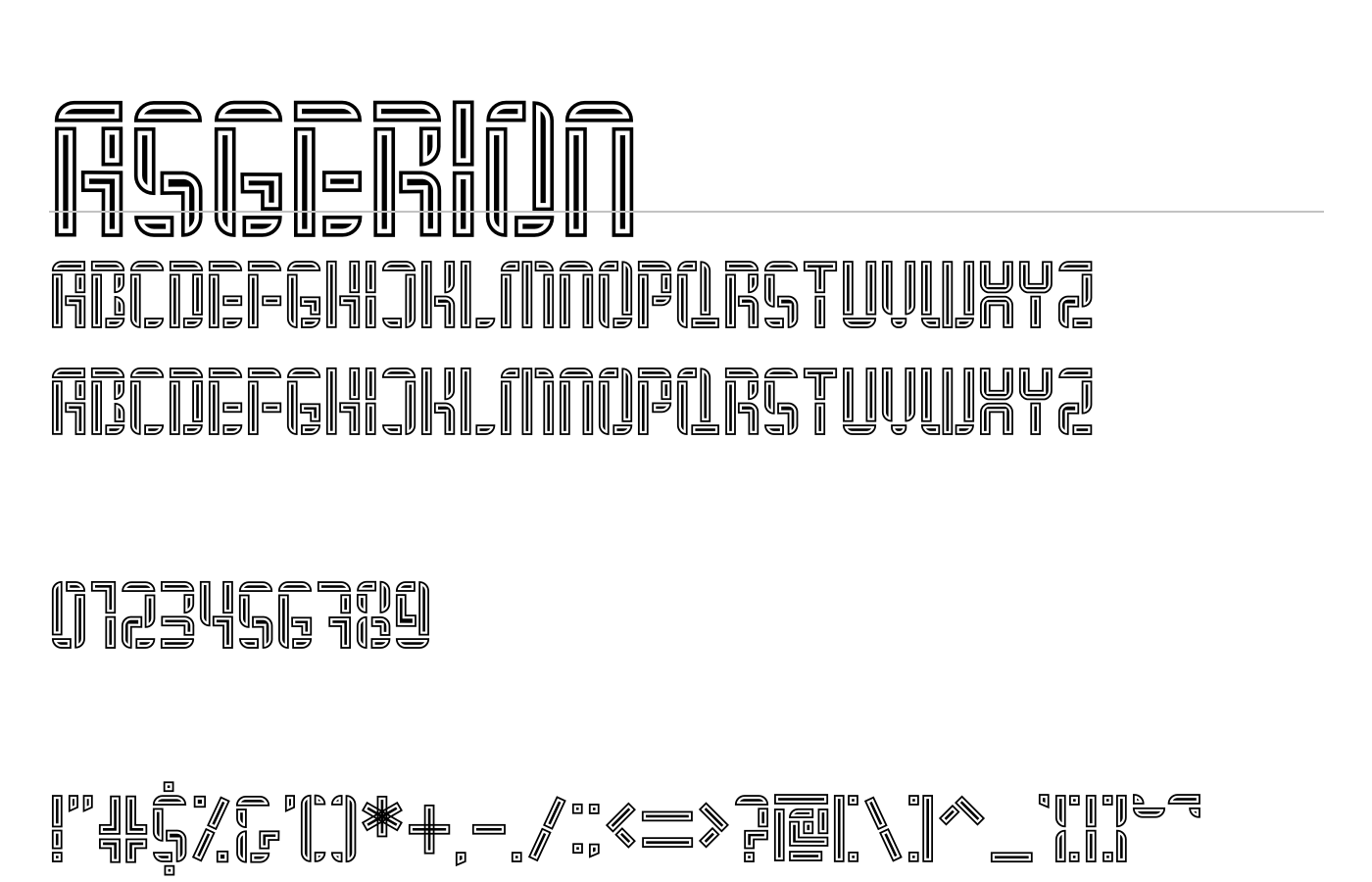
Asgerion is a unique, futuristic display font characterized by its geometric, hollowed-out letterforms with evenly spaced lines that create a high-tech, modern feel. With its narrow width and decorative structure, it evokes a digital or sci-fi aesthetic, making it ideal for eye-catching headlines, logos, and branding in technology or creative industries. This font works best in large sizes where its intricate design can truly stand out and add a bold, innovative personality to any project.
Asgerion Font
About Asgerion Font
| Font family | Asgerion Font |